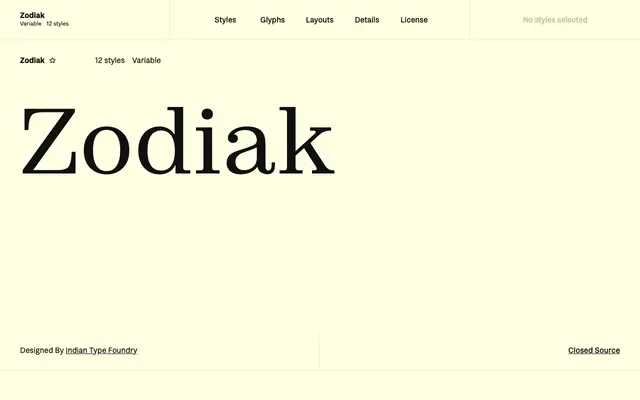
Zodiak
A sturdy serif family from Indian Type Foundry with bracketed slab-like serifs and Century-model proportions, available in six weights with italics and variable font support.
Designed by a Paris-based team under Indian Type Foundry, Zodiak draws on late-nineteenth-century typefaces in the Century tradition, with a vertical axis and near-uniform uppercase widths. The lighter weights suit extended reading whilst the extremes of Thin and Black are intended for display pairings. Decorative details appear throughout, including flag-like strokes on the numerals, a double-storey lowercase 'g' in uprights, and prominent ball terminals in the italics.
Zodiak features bracketed slab-like serifs, a vertical stress axis, and proportions reminiscent of late-nineteenth-century typefaces in the Century model, placing it at the intersection of transitional and contemporary editorial serifs.